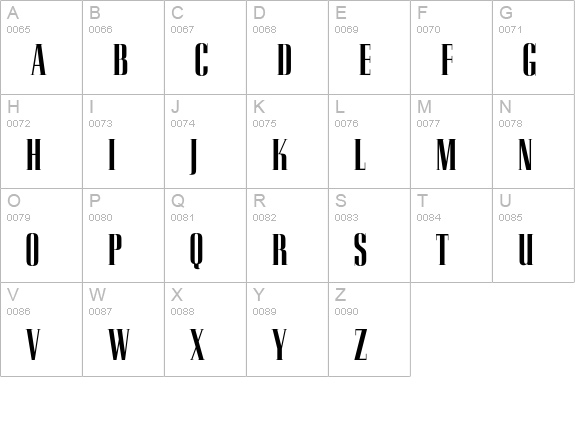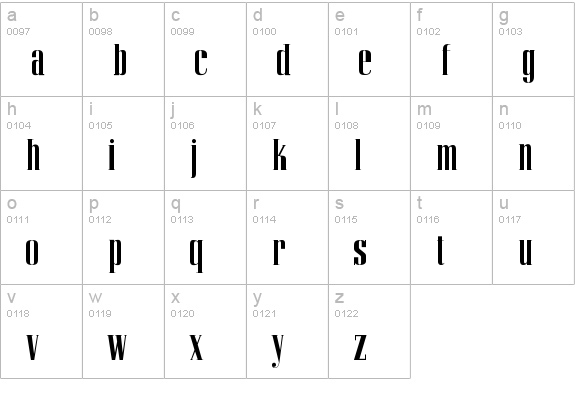
MercatorCondensed Font Details
MercatorCondensed is a stylish and versatile font that exudes sophistication and elegance. With its sleek lines and modern design, this font is perfect for a wide range of projects, from branding to editorial design. Its condensed style allows for more text to fit in a limited space without sacrificing readability. The clean and crisp letterforms make MercatorCondensed an excellent choice for both print and digital applications. The best part is, MercatorCondensed is available for free download at FontsMarket.com. So whether you're a designer looking to add a touch of class to your next project or a business owner in need of a polished font for your branding materials, MercatorCondensed is a fantastic choice that won't break the bank. Download it today and elevate your designs with this stunning typeface.